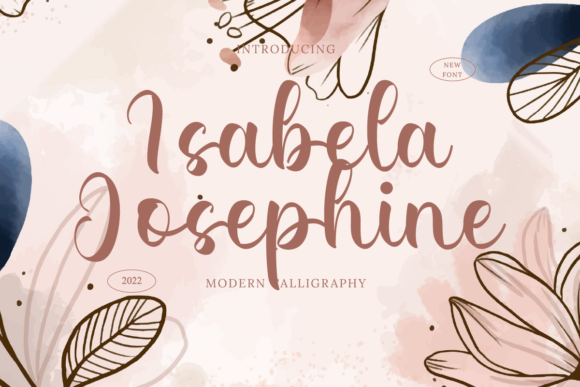
Unleash the captivating charm of Isabela Josephine, a remarkable script font that will transform your designs into works of art.
Step into a world of elegance and grace, where Isabela Josephine's intricate curves and delicate flourishes dance across the page, leaving an unforgettable impression on every beholder. Each letter, meticulously crafted by the renowned Circle Studio, embodies the essence of timeless beauty, making this font an exceptional choice for a wide range of design endeavors.
Embrace the power of Isabela Josephine to elevate your website copy, adding a touch of sophistication and refinement that will captivate your audience. Its versatility knows no bounds, effortlessly enhancing everything from invitations to logos, greeting cards to social media posts.
Imagine your wedding invitations adorned with Isabela Josephine's flowing script, conveying the joy and elegance of your special day. Your thank-you cards will radiate warmth and appreciation, leaving a lasting impression on your loved ones. Quotes and greetings will take on a new level of charm, their messages imbued with the timeless allure of handwritten artistry.
Businesses will find Isabela Josephine an invaluable asset, its elegant lines adding a touch of professionalism to business cards and logos. Whether you're crafting a delicate brand identity or simply seeking to make a statement, this font will elevate your designs to new heights.
Indulge in the beauty of Isabela Josephine and let your creativity soar. Its enchanting script will add a touch of magic to every project, turning ordinary designs into extraordinary masterpieces. Experience the transformative power of this exceptional font today and embark on a journey of design excellence.